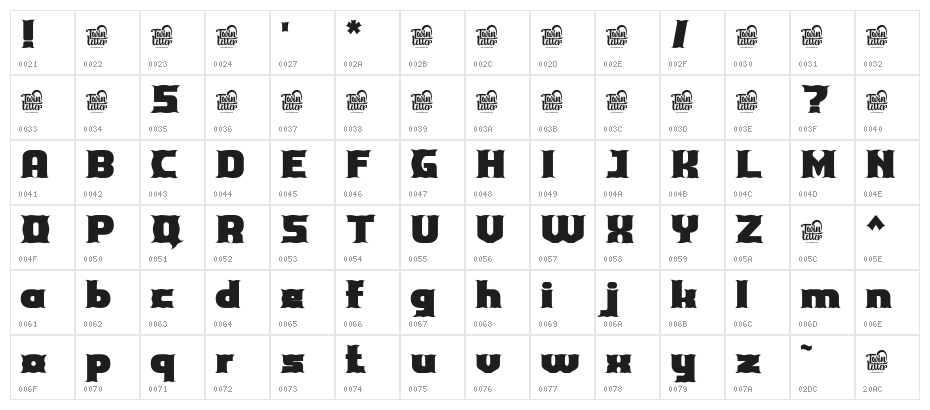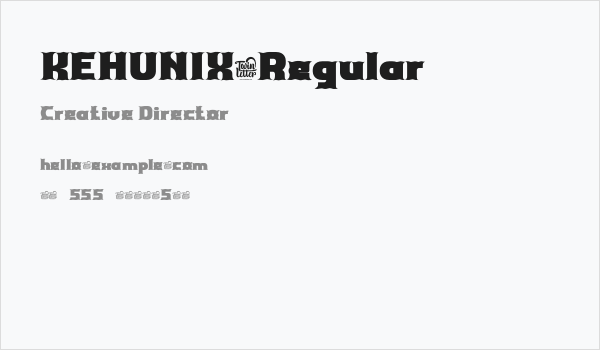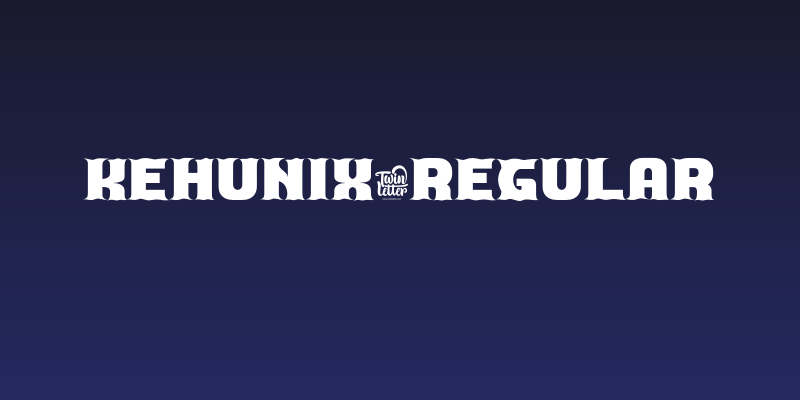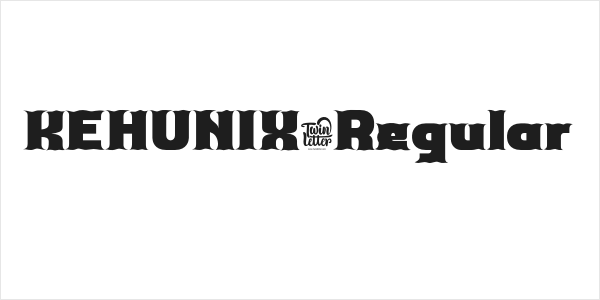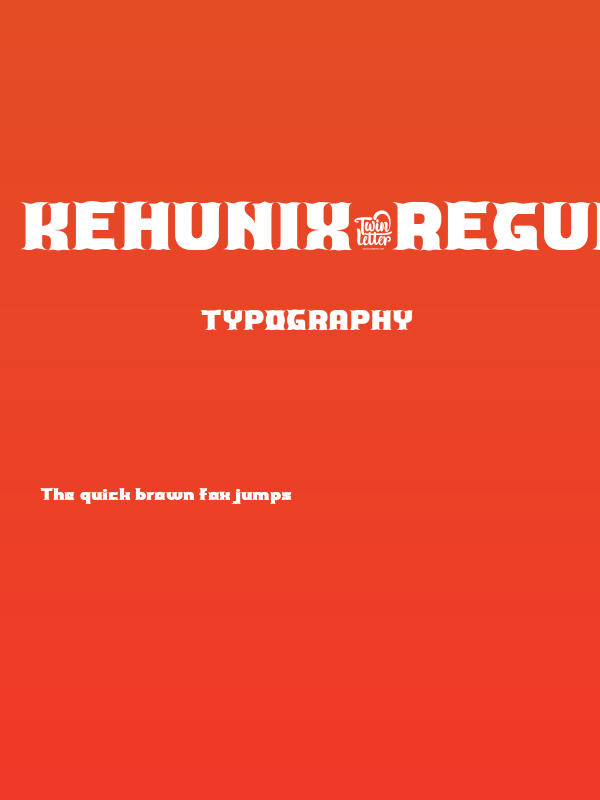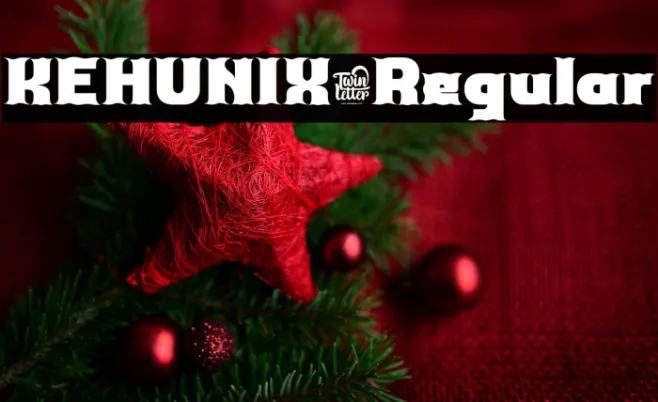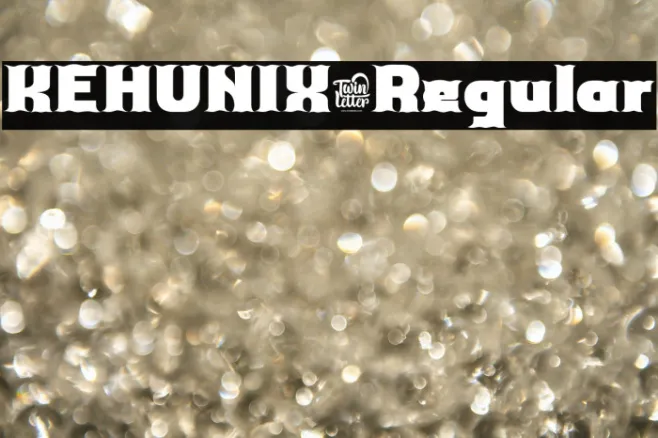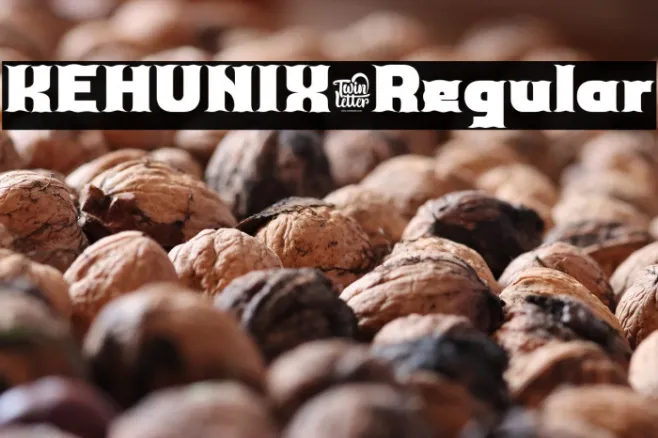
KEHUNIX-Regular Font
KEHUNIX-Regular Description
This font features a bold and striking design with a distinctive, sharp-edged style. The characters are robust and have a strong presence, making them ideal for attention-grabbing headlines and titles. The uppercase and lowercase letters maintain a consistent weight, contributing to a cohesive appearance. The numerals and special characters are designed to match the boldness of the alphabet, ensuring uniformity across all text elements. The font's unique style is reminiscent of vintage or retro aesthetics, yet it maintains a modern edge that makes it versatile for various design applications.
| Overall Style | Vintage, Modern |
| Proposed Projects | Ideal for posters, logos, branding, and any design requiring a bold statement. |